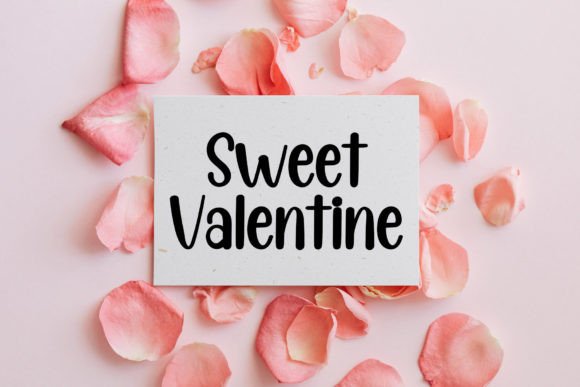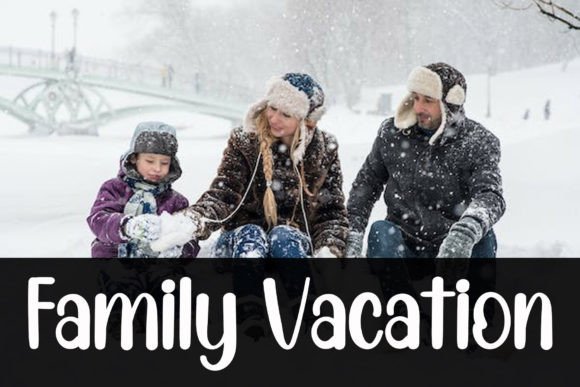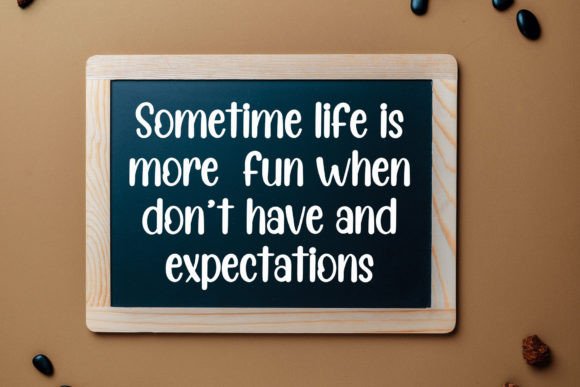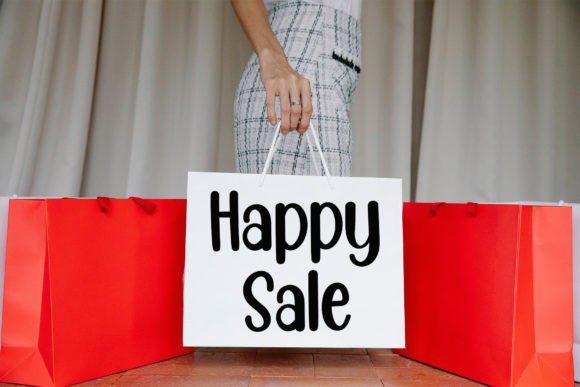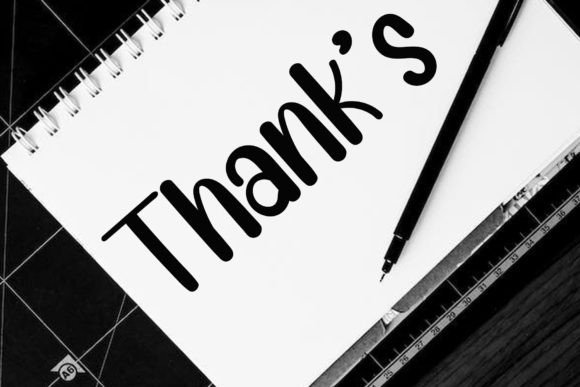
The Magic of Angel Font: Elevate Your Holiday Designs
It’s that time of the year again – the season of joy, giving, and endless design projects. I’m sure many of you have been in my shoes: working on a festive greeting card or holiday-themed gift label, searching for that perfect font to capture the spirit of the season. I recall a particularly frustrating experience when I was trying to create a Christmas card for a client, and I just couldn’t find the right typeface to make it merry and bright. That’s when I stumbled upon **Angel Font**, and it instantly became my go-to for all holiday designs.
A Festive Favorite: What I Love About Angel Font
Angel Font is more than just a typeface – it’s an experience. With its decorative elements and unique flair, it adds a touch of charm to any design. Here are a few things that make Angel Font stand out:
- ✨ Festive and happy vibe perfect for the holiday season
- ✅ Decorative elements that add a touch of elegance
- 🎉 Unique flair that sets it apart from other holiday fonts
- 💻 PUA coded for easy access to glyphs and ligatures
While Angel Font has won my heart, it’s not without its quirks. Here’s an honest review of what to expect:
- ✨ The font’s ability to evoke a sense of nostalgia and cheer
- ✅ Easy to use and access glyphs and ligatures thanks to PUA coding
- 🎉 Perfect for a variety of holiday-themed projects
- ⚠️ May not be suitable for very formal or professional designs
- 🤔 Limited use outside of holiday-themed projects
While the origins of Angel Font are shrouded in mystery, it’s easy to imagine a designer sitting by the fireplace, surrounded by holiday decorations, and pouring their heart into creating a font that captures the essence of the season. The result is a typeface that’s both nostalgic and cheerful – perfect for making your holiday designs shine.
| Font Name | Angel Font |
| What makes Angel Font special for holiday designs? | Angel Font’s decorative elements and unique flair make it perfect for capturing the spirit of the holiday season. |
| Is Angel Font easy to use for beginners? | Absolutely! Angel Font is user-friendly, and its PUA coding makes it easy to access glyphs and ligatures. |
Angel Font is more than just a holiday typeface – it’s a way to bring joy and cheer to your designs. Whether you’re creating greeting cards, gift labels, or festive projects, this font is sure to become your new favorite companion for the holiday season.